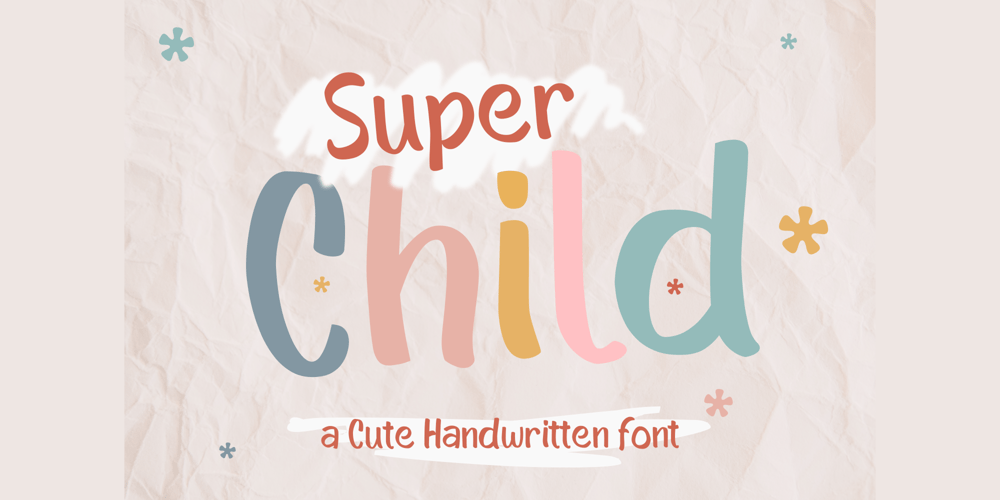
Super Child Font Family was designed by Wisesa Purba Giandar and published by Sesa Grafika. Super Child contains 1 styles and family package options. Super Child is a sweet and cute handwritten font. Fall in love with its incredibly versatile style and use it to create gorgeous wedding invitations, beautiful stationary art, eye-catching social media posts, and much more.Super Child support for various languages ( Multilingual Support )with a feel like a child’s writing, your design will be increasingly popular with consumers. Very suitable for various designs of children, romance and other happy occasions.